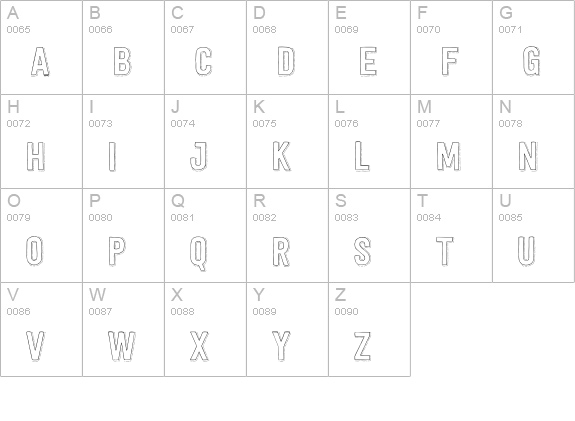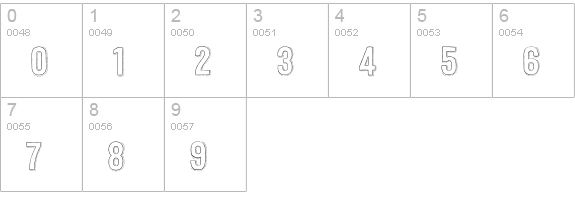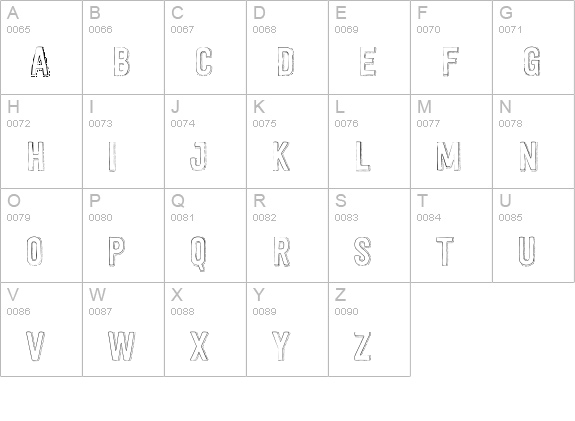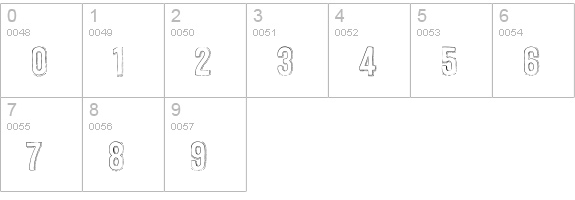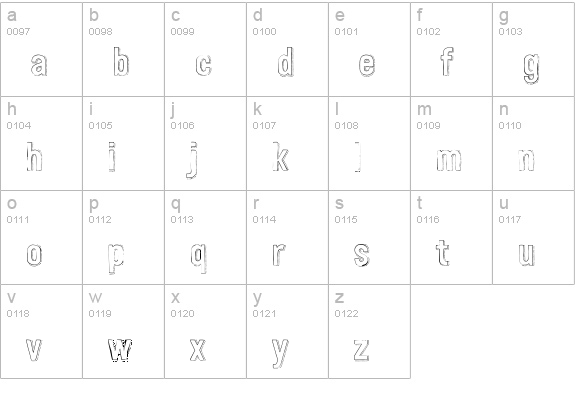
Festivo LC Outline Dots Font Details
Festivo LC Outline Dots font is a charming and playful typeface that will add a touch of whimsy to any design project. With its delicate outline style and cheerful dotted embellishments, this font is perfect for creating eye-catching headlines, posters, invitations, and more. What sets Festivo LC Outline Dots font apart is not only its unique design but also the fact that it is available for free download at FontsMarket.com. This means you can easily add this delightful font to your collection without any cost, making it a valuable resource for designers, artists, and creatives looking to elevate their work with a touch of fun and flair. Whether you're working on a project that calls for a lighthearted and lively font or simply want to experiment with something new, Festivo LC Outline Dots font is sure to inspire and delight. Download it for free today and let your creativity shine with this delightful typeface.